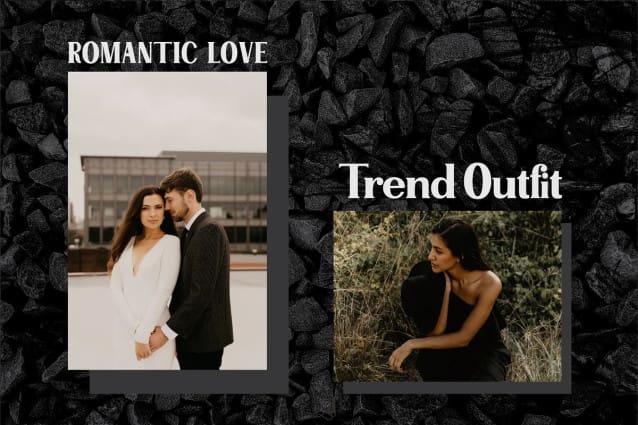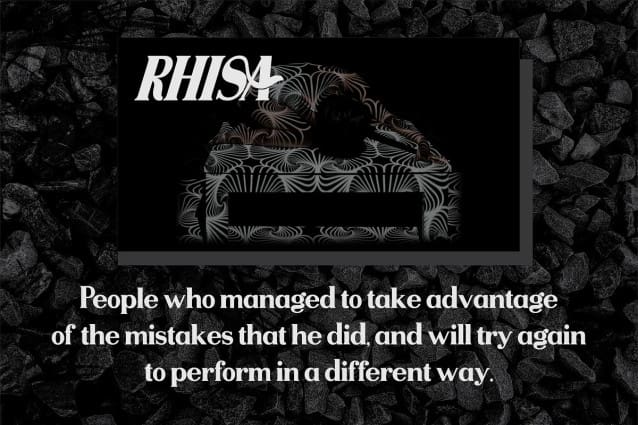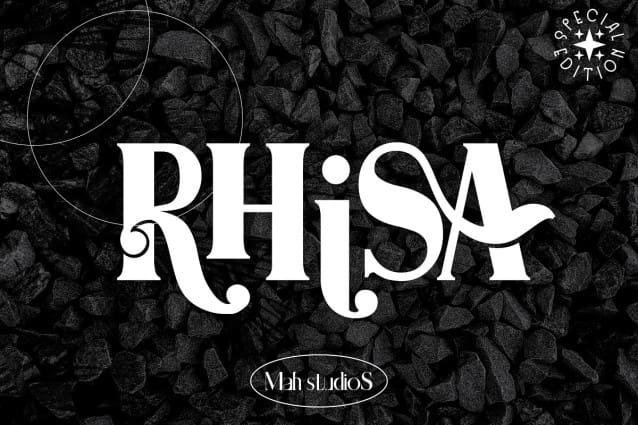
Rhisa Font
Rhisa Font – Serif style font, suitable for any projects such as: logos, branding projects, homeware designs, product packaging, mugs, quotes, posters, shopping bags, t-shirts, book covers, name card, invitation cards, greeting cards, label, photography, watermark, special events, and all your other luxury projects that need a premium signature taste.